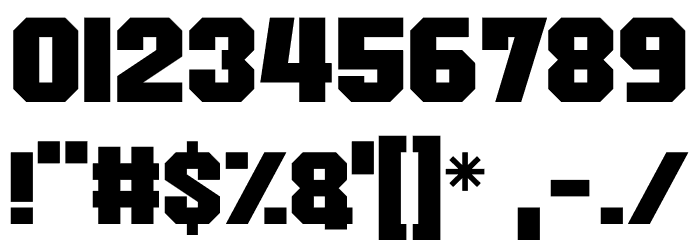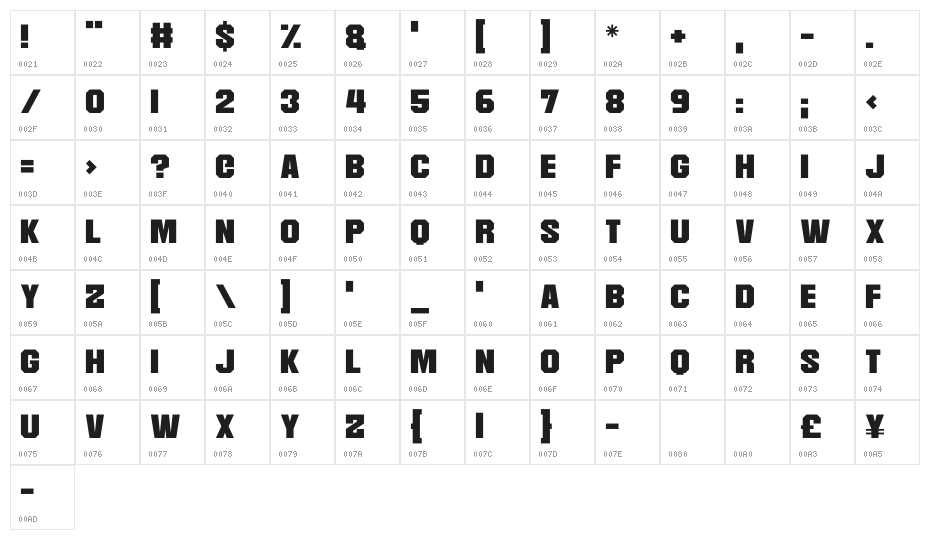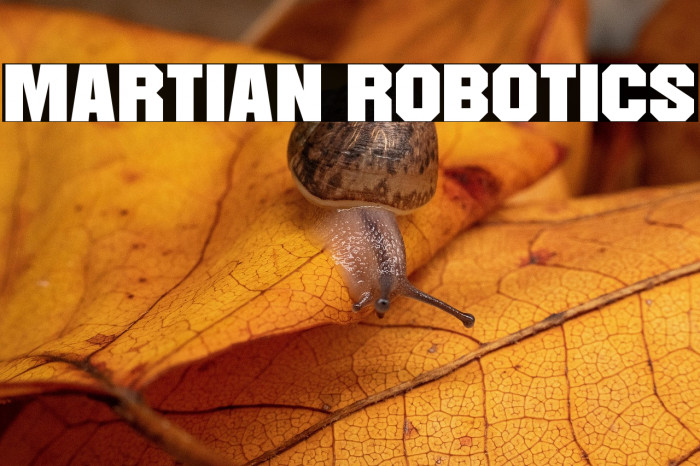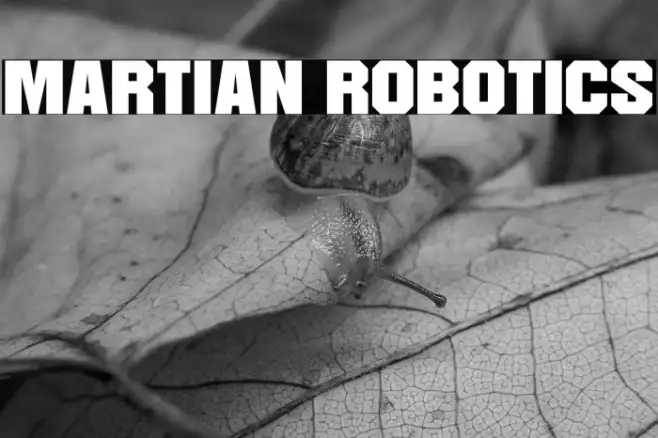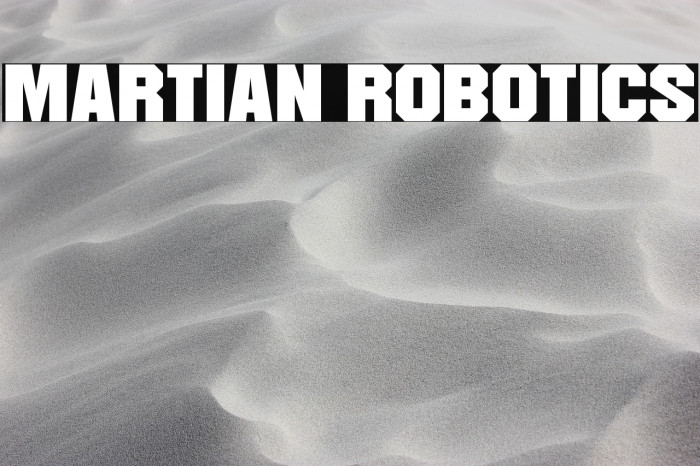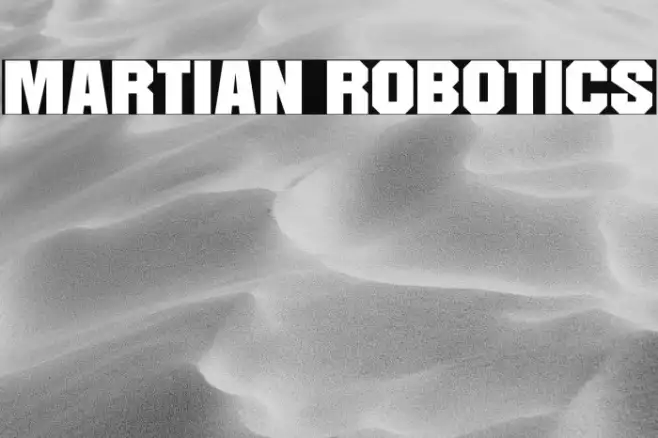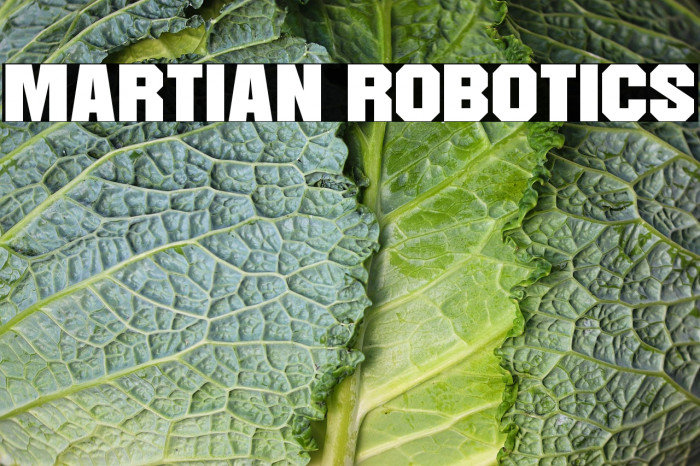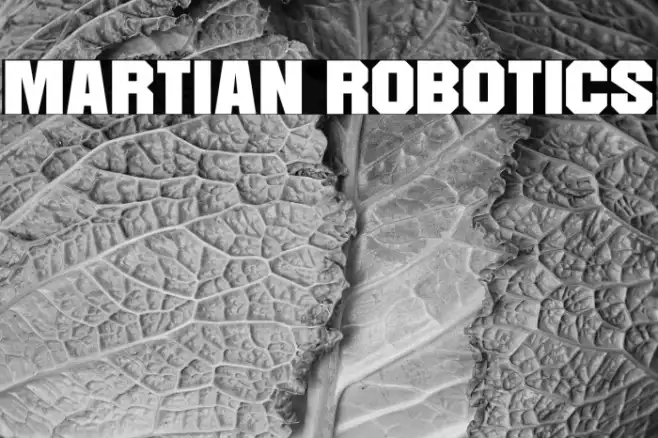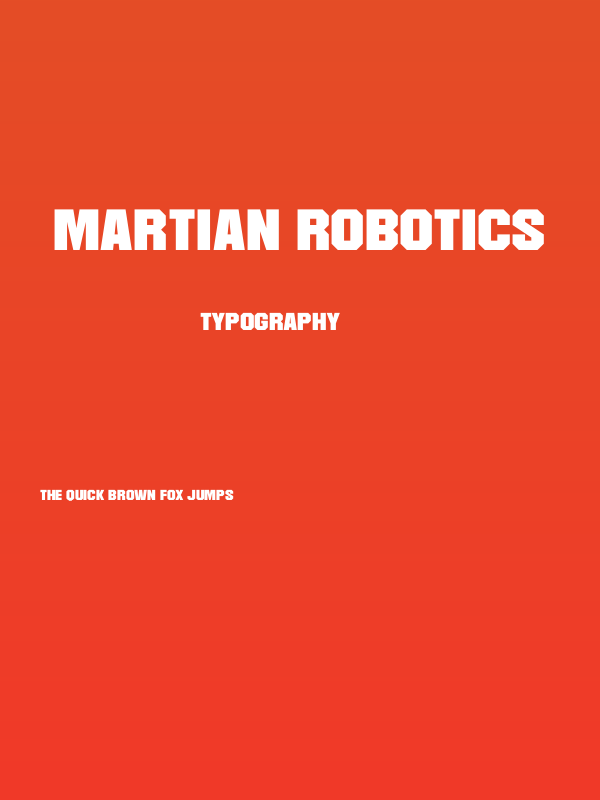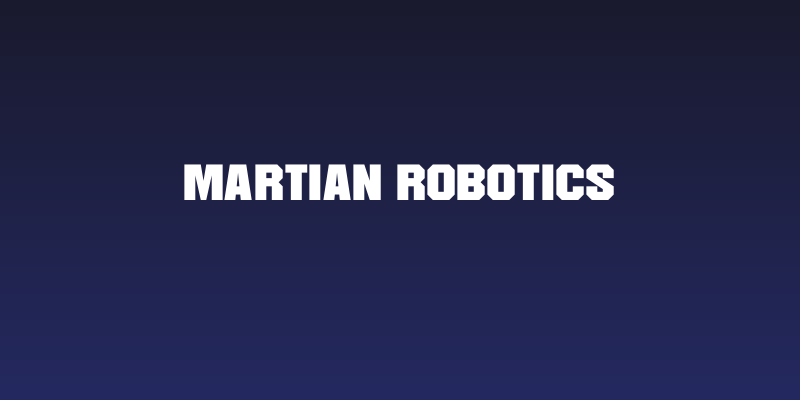
Martian Robotics Font
Martian Robotics Description
This font features a bold and robust design with a distinctly futuristic and mechanical aesthetic. The characters are constructed with thick, block-like forms that convey strength and stability. The angular edges and geometric shapes give it a modern, industrial feel, reminiscent of machinery and technology. The uppercase letters are particularly striking, with a uniform height and width that create a cohesive and powerful visual impact. The numerals and special characters maintain the same boldness and geometric precision, ensuring consistency across all elements. This font is ideal for projects that require a strong, commanding presence and a touch of modernity.
| Proposed Projects | Ideal for technology branding, sci-fi movie posters, video game titles, and industrial product packaging. |